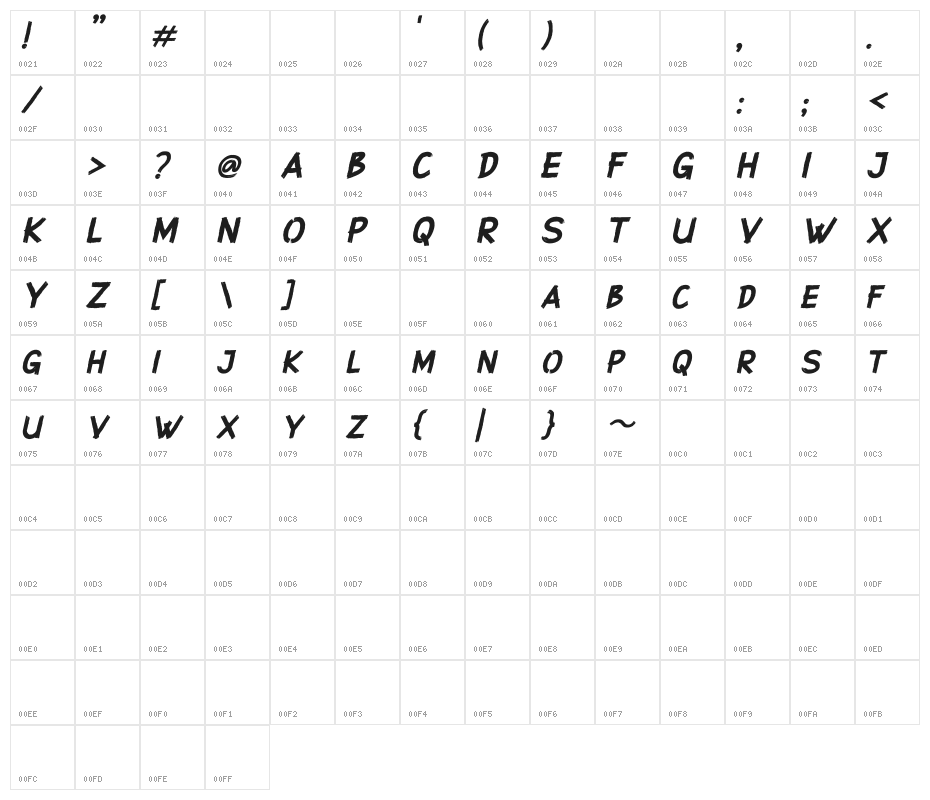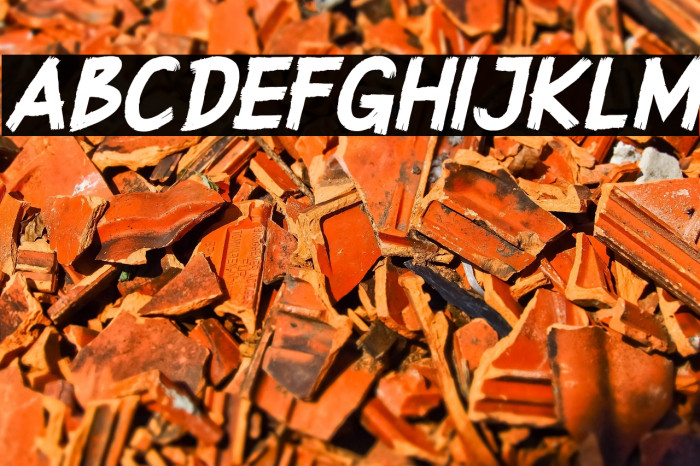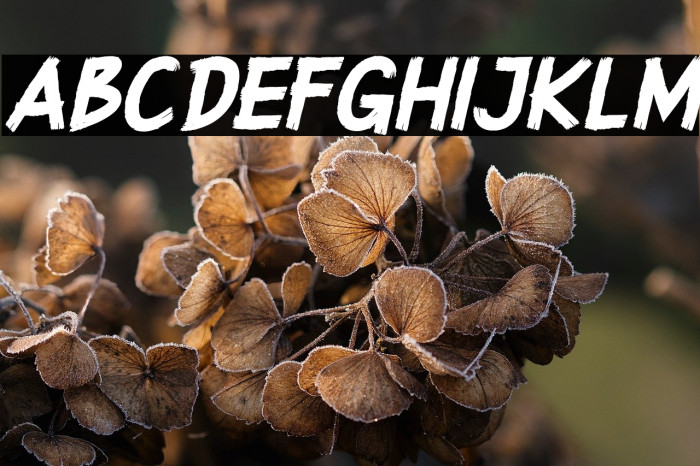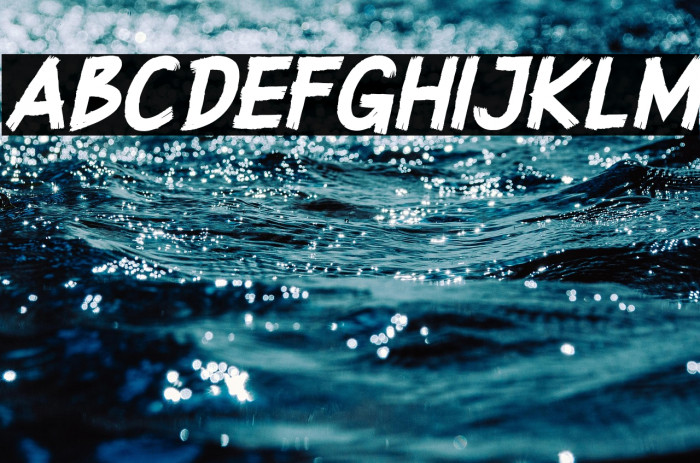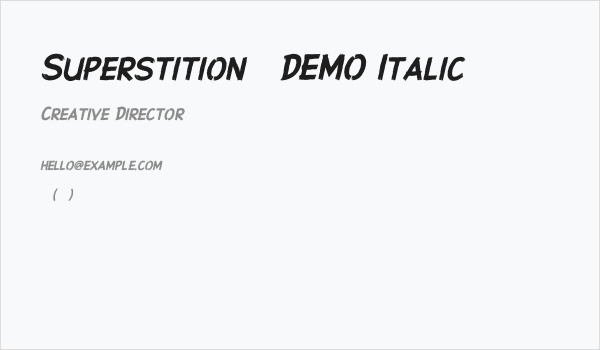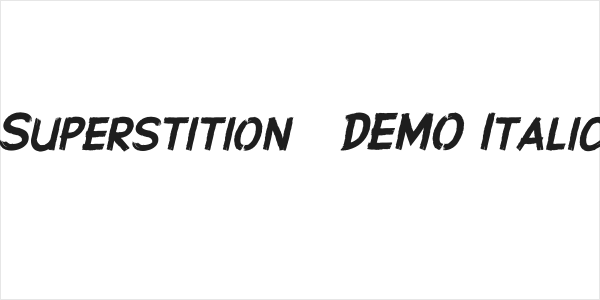
Superstition - DEMO Italic Font
Superstition - DEMO Italic Description
This font features a bold and dynamic style with a distinct italic slant, giving it a sense of motion and energy. The strokes are thick and textured, reminiscent of brush strokes, which adds a handcrafted feel to the design. The uppercase and lowercase letters maintain a consistent style, with a slightly condensed form that enhances readability while preserving its artistic flair. The numbers and special characters are designed to match the overall aesthetic, ensuring a cohesive look across all elements. This font is ideal for projects that require a bold statement and a touch of creativity.
| Overall Style | Modern, Artistic |
| Proposed Projects | Ideal for branding, posters, headlines, and any creative projects that require a bold and artistic touch. |